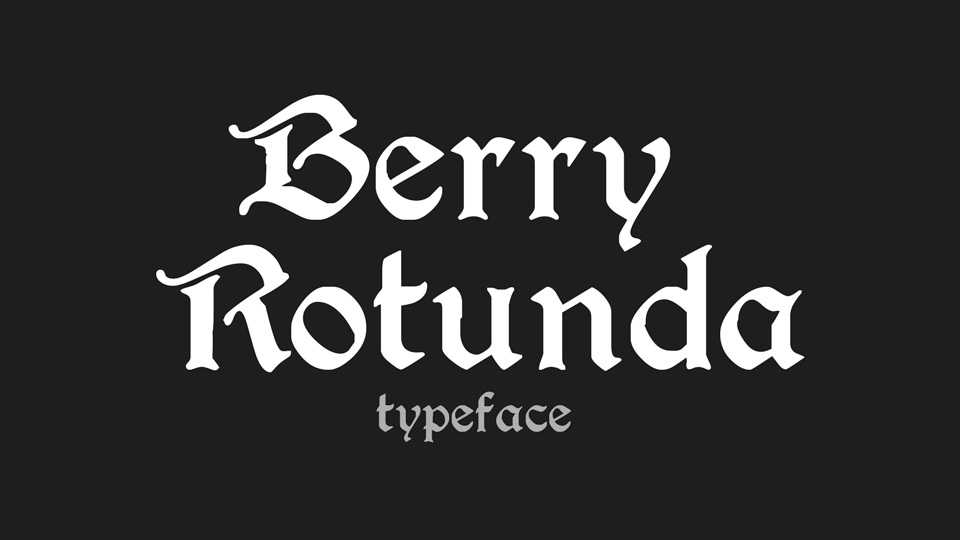
Download Berry Rotunda font, a medieval gothic typeface, very well suited for lengthy text setting. It is beautiful and easily readable even in small text sizes.
Designer: Typo-Graf